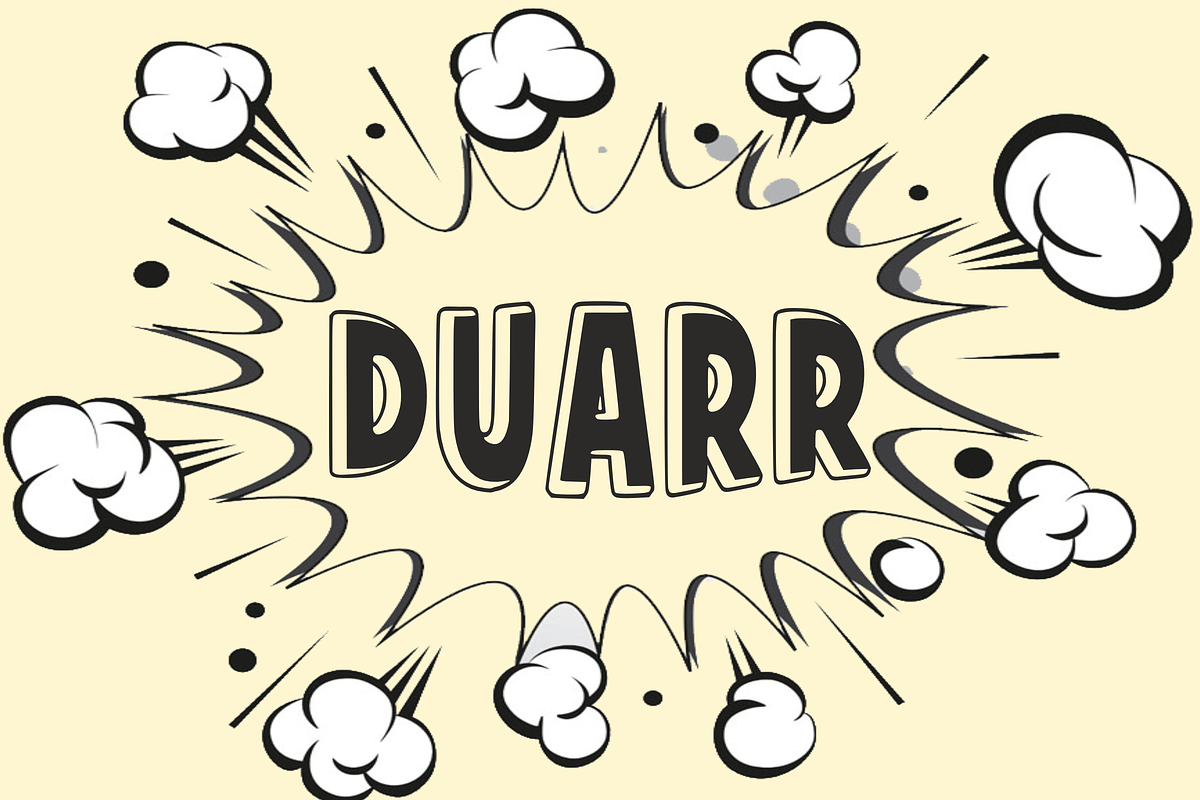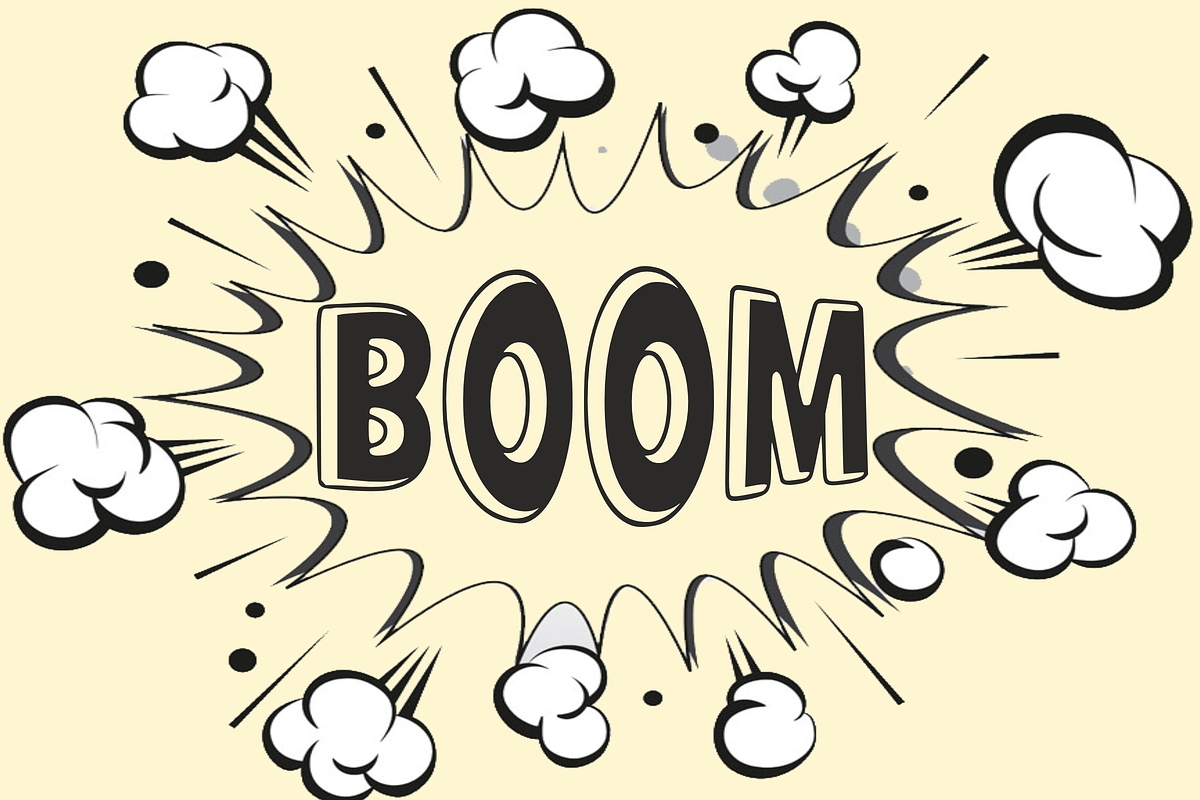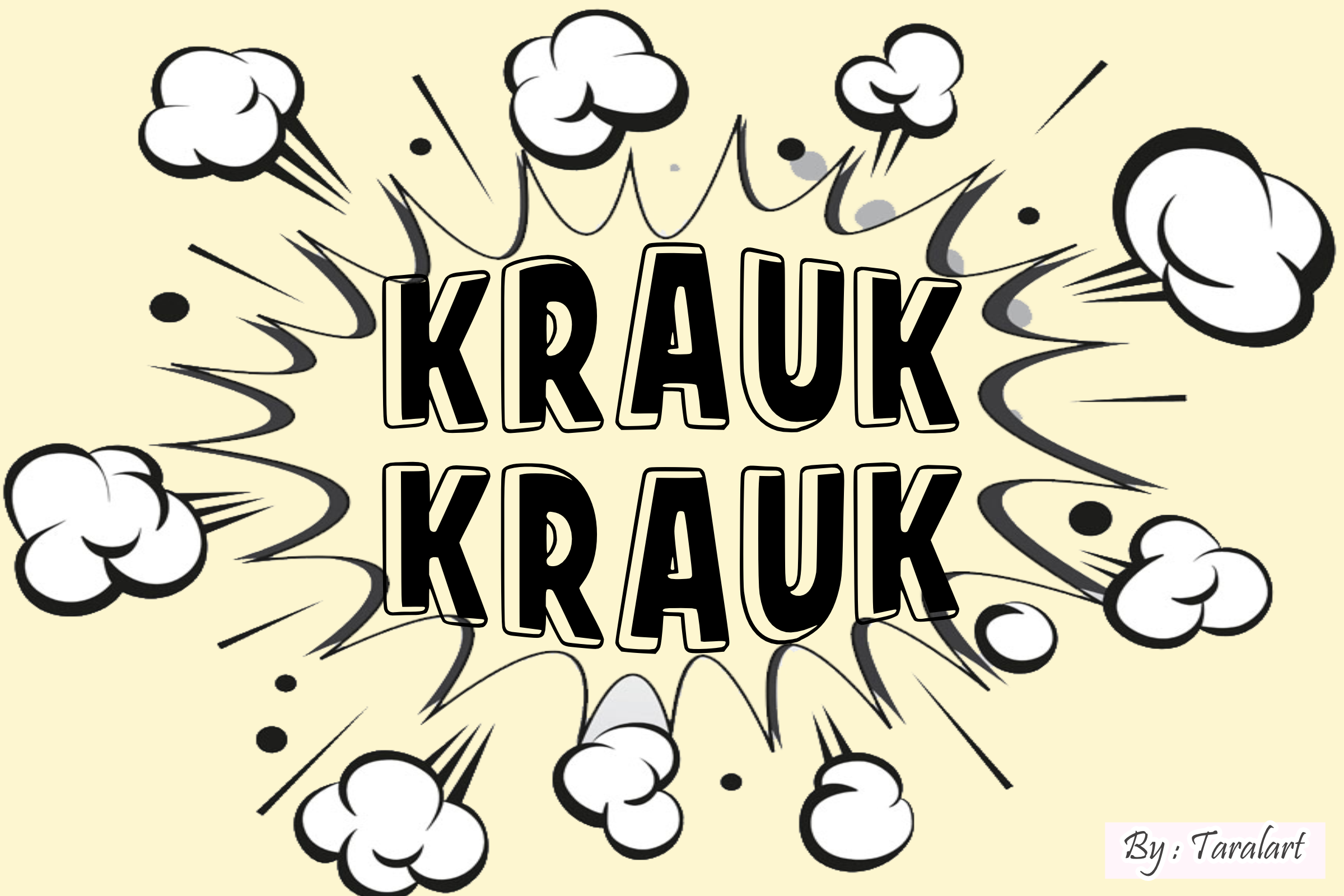
Krauk Krauk - Comic Action Font
Crunch into your next creative design with Krauk Krauk! This bold, high-energy display font features an action-packed comic book style that perfectly mimics explosive sound effects and playful cartoon vibes. It’s the ultimate choice for adding a punchy, loud, and eye-catching look to your layouts.
Perfect for comic layouts, fun food or snack packaging, and trend-focused crafting, Krauk Krauk masterfully combines a dynamic pop-art aesthetic with excellent legibility. It is highly versatile, deeply expressive, and fully optimized for flawless performance across premium digital cutting tools and professional print setups.
All-Caps Character Set (Chunky, action-styled uppercase letters perfect for loud headlines)
Comic Books, Cartoon Sound Effects, & Action-Themed Graphics 💥
Snack Packaging, Food Branding, & Playful Product Labels 🍿
Cricut, Silhouette, & DIY Craft Sublimation Projects ✂️
Kids Birthday Invitations, Youth Event Posters, & Game Logos 🎮
Custom Die-Cut Stickers, Kids Apparel Prints, & Fun Merch 👕
High-Impact YouTube Thumbnails, Bold Headlines, & Social Media Graphics ✨